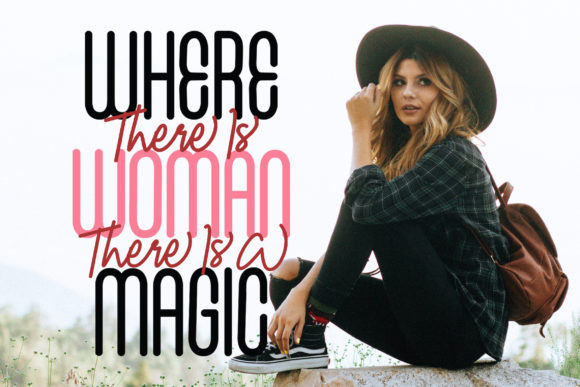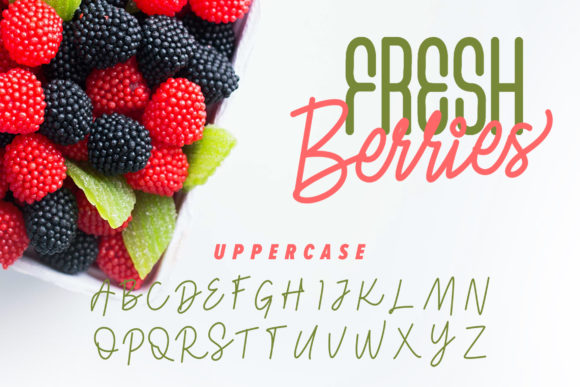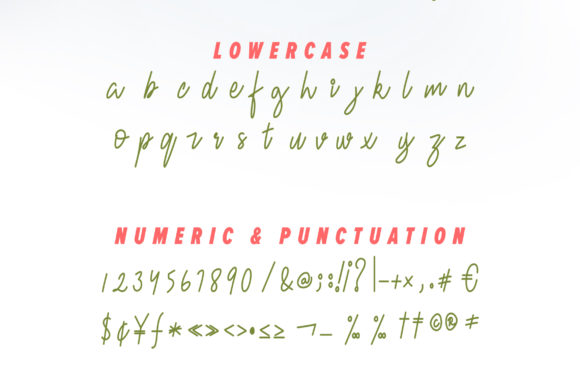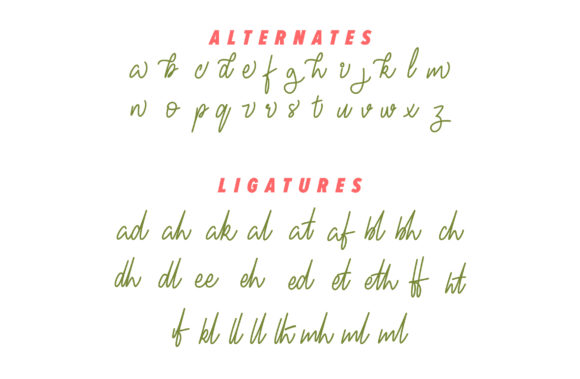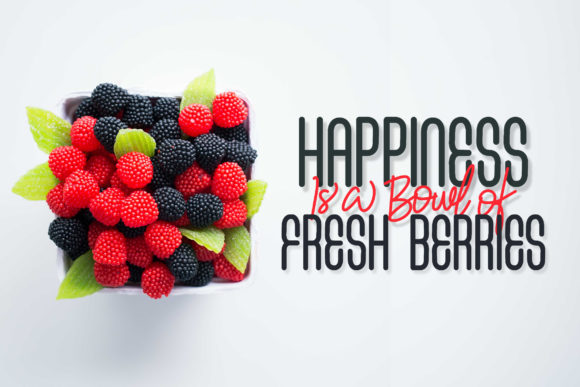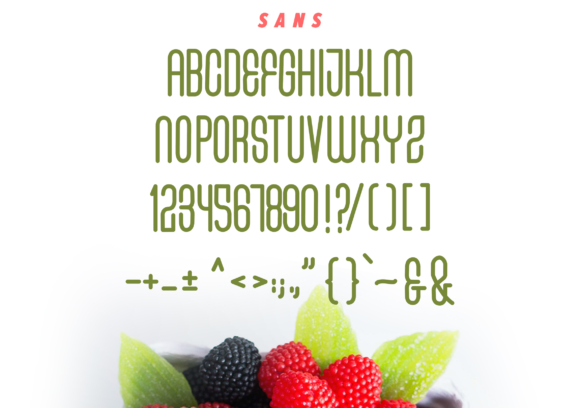
Discover the Sweet Charm of Fresh Berries Font
Have you ever stumbled upon a design element that instantly sparks creativity and makes you want to run with it? For designers, that moment is like finding a rare gem, and it can make all the difference in bringing a project to life. For me, that moment came when I discovered the Fresh Berries Font.
This lovely font is a masterclass in design, with its carefully crafted elements and beautiful charm making it perfect for a wide range of design projects. Whether you’re working on a food blog, a children’s book, or a summer-themed website, Fresh Berries Font is sure to add a touch of warmth and personality to your design. Its unique style and versatility make it a valuable asset for designers, allowing them to express their creativity and bring their ideas to life.
Fresh Berries Font Key Features
- Font Family: Fresh Berries Font is a custom-designed font family, making it a unique addition to any digital project.
- Size: The font family includes 6 font weights, ranging from Light to Bold, to cater to various design needs.
- Language Support: Fresh Berries Font supports a wide range of languages, including Latin, Cyrillic, and Greek scripts.
- Unique Characteristics: The font features a playful, hand-drawn design with a focus on organic shapes and subtle texture, making it perfect for food, beverage, and lifestyle brands.
Designer Review: Fresh Berries Font
At first glance, Fresh Berries Font catches your attention with its playful, hand-drawn feel. I’d say it’s perfect for adding a touch of whimsy to your designs ✨. The font’s script-style connections and rounded shapes evoke a sense of friendliness and approachability.
One of the standout features of Fresh Berries is its high level of customization. The font family includes a wide range of weights, from light to bold, making it easy to adapt to different design contexts ✨. Additionally, the font’s bold style is particularly well-suited for headings and titles.
- ⚠️ While the font’s script-style connections are charming, they can make it difficult to read at smaller font sizes.
- ⚠️ The font’s rounded shapes can also make it less suitable for formal or professional designs.
- ⚠️ In some cases, the font’s bold style can feel a bit too aggressive, overpowering the surrounding text.
Overall, I think Fresh Berries Font is a great choice for designs that require a touch of personality and playfulness. While it may not be the best fit for every project, it’s definitely worth considering for designs that need a little extra charm ✨.
Practical Application Guide for Fresh Berries Font
Tips for Getting the Most Out of the Fresh Berries Font
Use the Fresh Berries font for designs that require a playful and whimsical touch. Combine it with bright colors and pastel hues for a cohesive look.
The Fresh Berries font is ideal for:
- Children’s book covers and illustrations
- Summer-themed marketing materials
Alternatives to Fresh Berries Font
Fresh Berries Font is a playful, handwritten font used for various design projects. However, there are other alternatives that designers can consider for their needs.
Great Vibes is a modern, handwritten font perfect for creating a friendly and approachable atmosphere in designs. It’s ideal for use in logos, branding, and advertising materials where a casual, yet stylish feel is required. Compared to Fresh Berries Font, Great Vibes is more modern and versatile, making it a suitable choice for a wider range of projects.
Alex Brush is a beautiful, elegant script font ideal for use in wedding invitations, stationery, and other high-end designs. It’s perfect for creating a sophisticated and refined atmosphere. Compared to Fresh Berries Font, Alex Brush is more formal and elegant, making it a great choice for projects that require a touch of luxury.
Q: What is the recommended font size for using the Fresh Berries Font?
The recommended font size for using the Fresh Berries Font is between 10pt and 24pt. This range provides optimal readability and visual appeal for most applications, including digital displays, print materials, and signage. However, feel free to experiment with different font sizes to achieve the desired effect for your specific project.